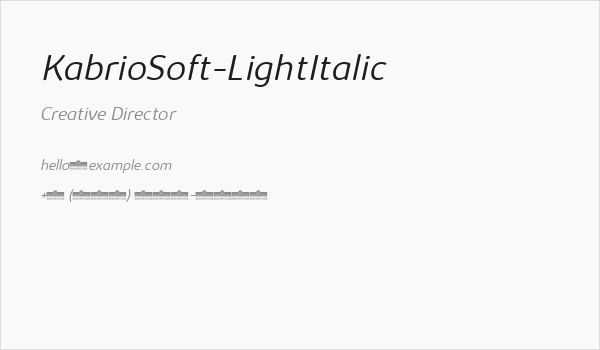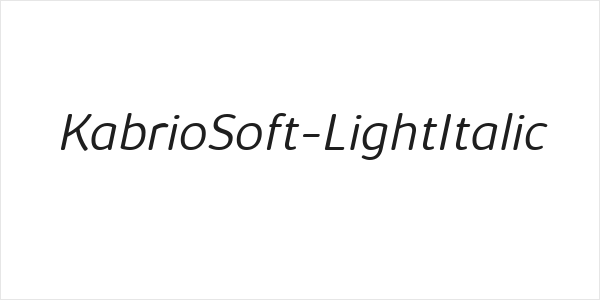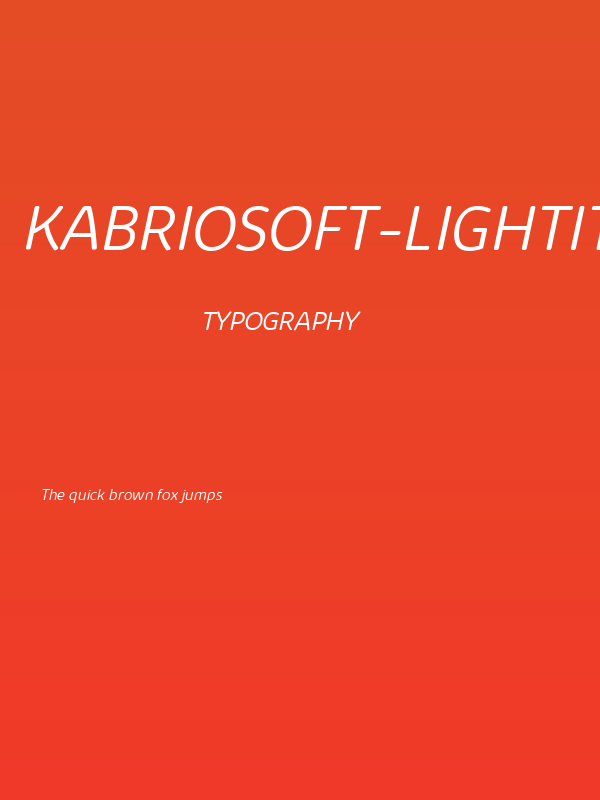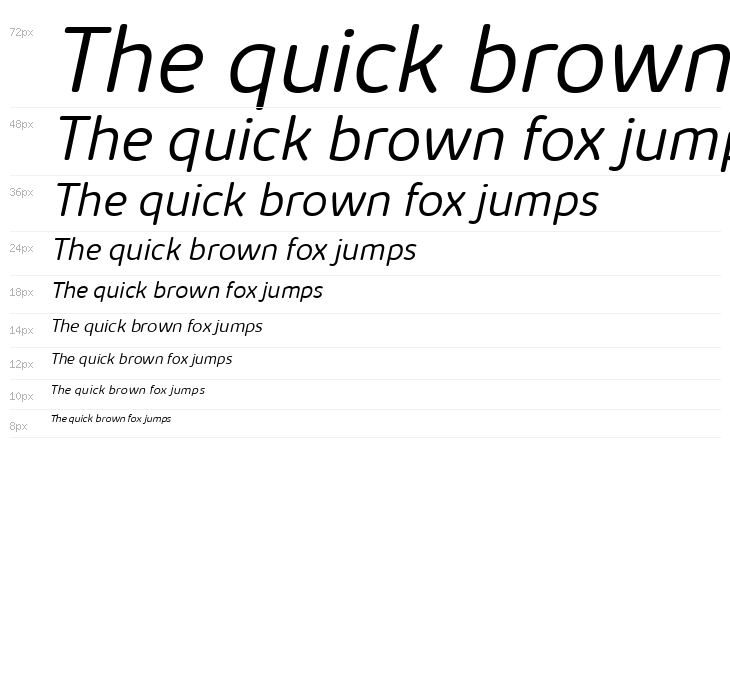
KabrioSoft-LightItalic Font
KabrioSoft-LightItalic Description
This font features a sleek and modern design with a light weight and italic style. The characters are slightly slanted, giving a sense of motion and elegance. The strokes are consistent and smooth, contributing to a clean and professional appearance. The font maintains a balanced proportion between the height and width of the characters, ensuring readability. The spacing between characters is normal, providing clarity and ease of reading. The overall style is contemporary, making it suitable for a variety of applications.
| Proposed Projects | Ideal for branding, advertising, digital content, and editorial design projects. |